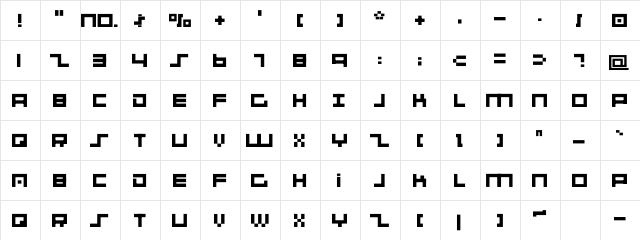
001 System Analysis Bold
Design Context for 001 System Analysis Typeface
001 System Analysis takes a measured approach to typography — its balanced proportions and neutral character make it a reliable workhorse for both digital and print work. Its bold stroke weight gives it real presence on the page.